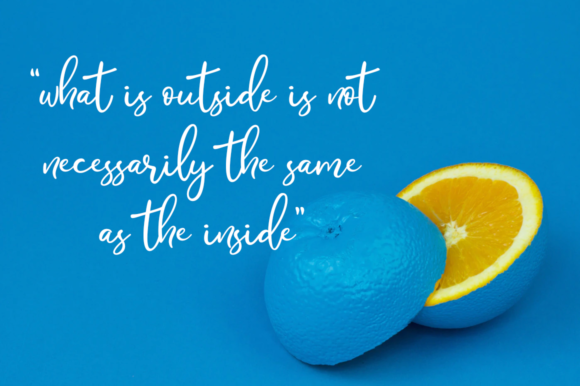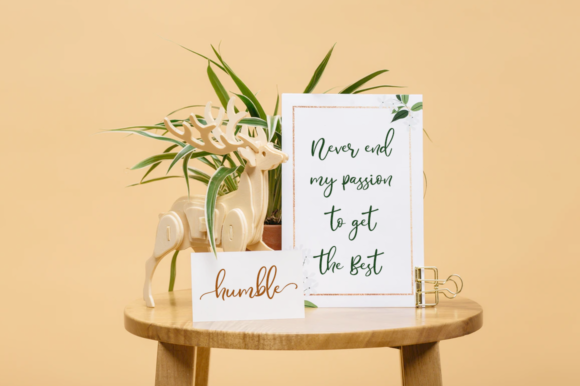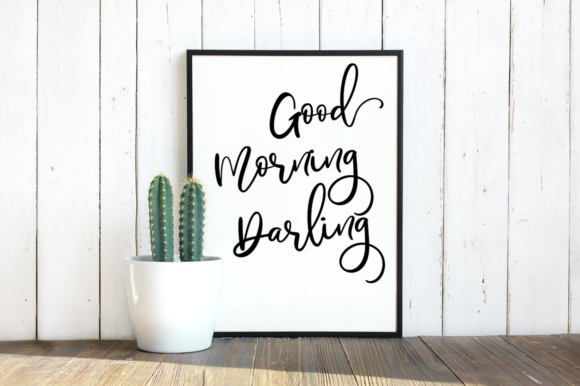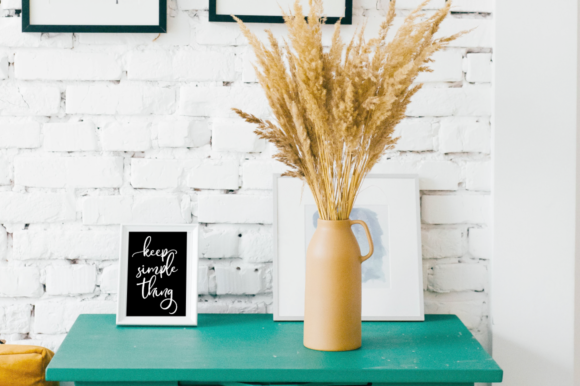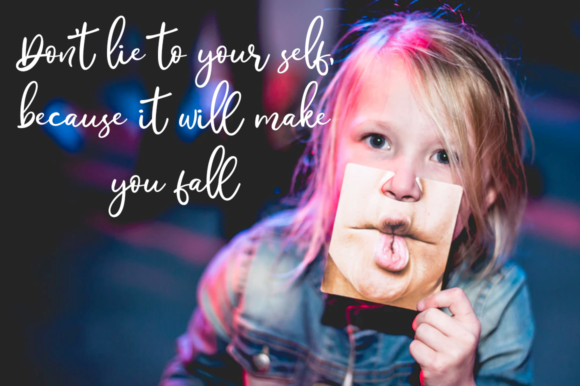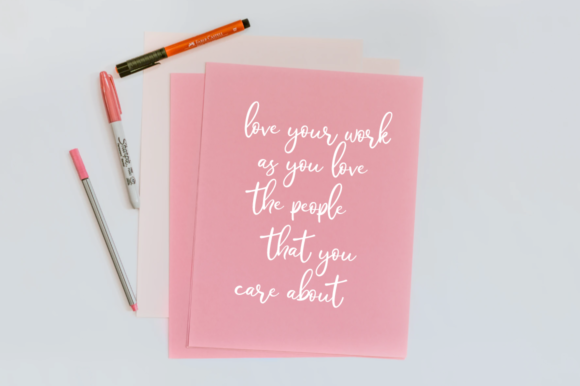
Introduction to Mostly Bonny Font
Who hasn’t felt that rush of creative excitement when a new design project comes along, and the possibilities seem endless? For designers, it’s that moment of pure joy when we get to bring our ideas to life, experimenting with different styles, colors, and fonts to create something truly unique. And when it comes to adding a touch of elegance and sophistication to our creative project, the right font can make all the difference.
That’s where the Mostly Bonny Font comes in – a fun and playful script that’s sure to elevate any design to the next level. With gorgeous alternates and a high-quality design, this font is a valuable resource for any designer looking to add some extra flair to their work. And the best part? It’s available for free download, making it an accessible and affordable addition to your design arsenal.
Key Features of Mostly Bonny Font
- Unique, elegant script font perfect for creative projects that require a touch of sophistication and whimsy.
- Includes a comprehensive character set, including uppercase and lowercase letters, numbers, and punctuation marks.
- Perfect for adding a personal touch to wedding invitations, greeting cards, and other special occasion designs.
Honest Review: Mostly Bonny Font
As a designer, I’m always on the lookout for high-quality design resources that can elevate my creative projects. Recently, I stumbled upon the Mostly Bonny Font, and I’m excited to share my honest review with you.
What works well: ✨ The Mostly Bonny Font has a unique, vintage charm that’s perfect for projects that require a touch of nostalgia. The font is available for free download, which is a huge plus for designers on a budget. I also appreciate the transparent background, which makes it easy to use in a variety of design scenarios.
- Unique, vintage aesthetic
Limitations: ⚠️ While the Mostly Bonny Font is a great addition to any design library, it’s not suitable for projects that require a more modern or minimalist look. The font’s vintage charm can be overpowering in some cases, so be sure to use it judiciously.
Overall impression: I’m impressed with the Mostly Bonny Font’s unique charm and versatility. While it may not be the best choice for every project, it’s definitely a valuable addition to any design resource library.
Tips for Getting the Most Out of Mostly Bonny Font
Use Mostly Bonny Font on a transparent background to create a beautiful and eye-catching design. Experiment with different font sizes and colors to add visual interest to your project.
Mostly Bonny Font is perfect for creative projects such as wedding invitations, birthday cards, and social media graphics. Its high-quality design makes it a great resource for any design project.